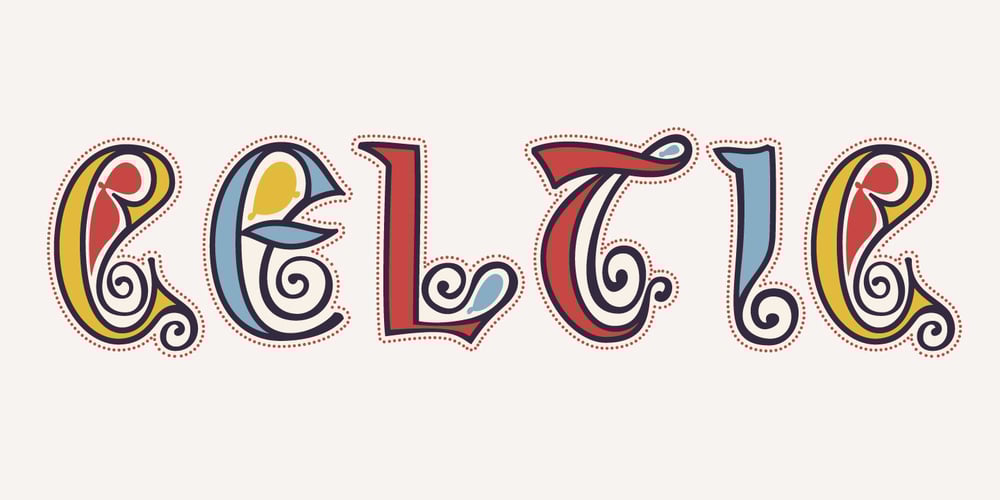
Celtic Spiral Font Family was designed by Roman Korolev and published by Kaer. Celtic Spiral contains 2 styles and family package options. Hi! This is a new classic Celtic font. With spirals, knots and animals’ faces.СelticSpiral font is perfect for printing of graphic arts, posters, packaging and t-shirts. The font is presented in usual and color versions.Only uppercase letters from A to Z and numbers set (36 characters)